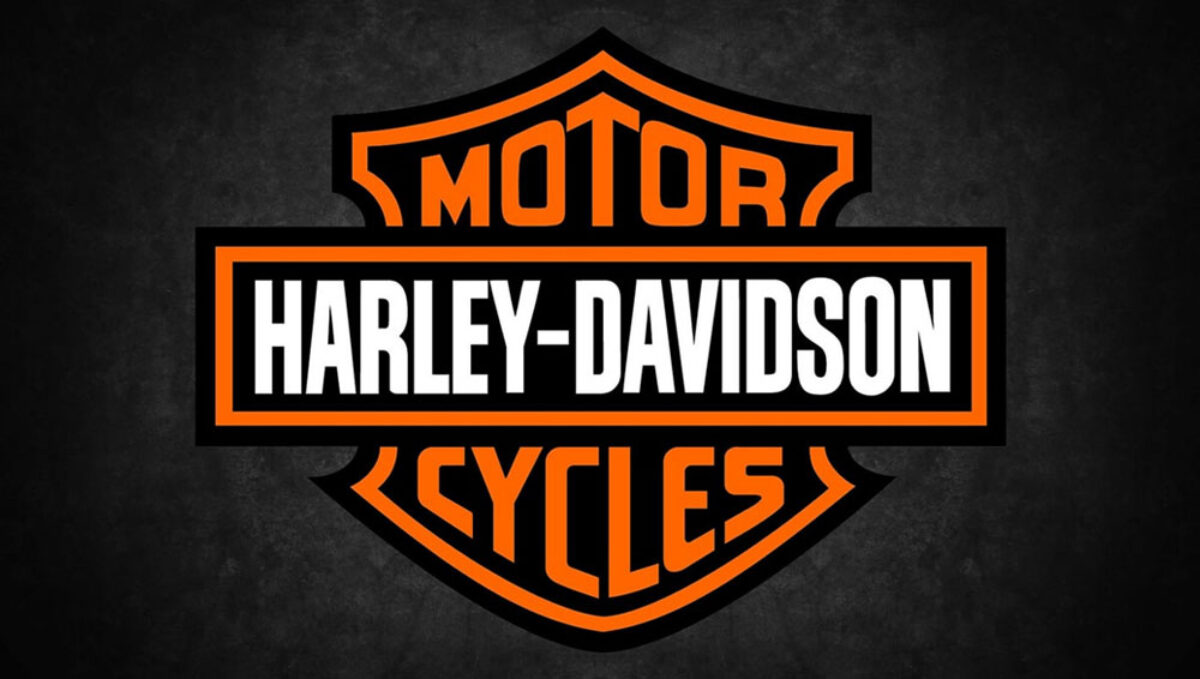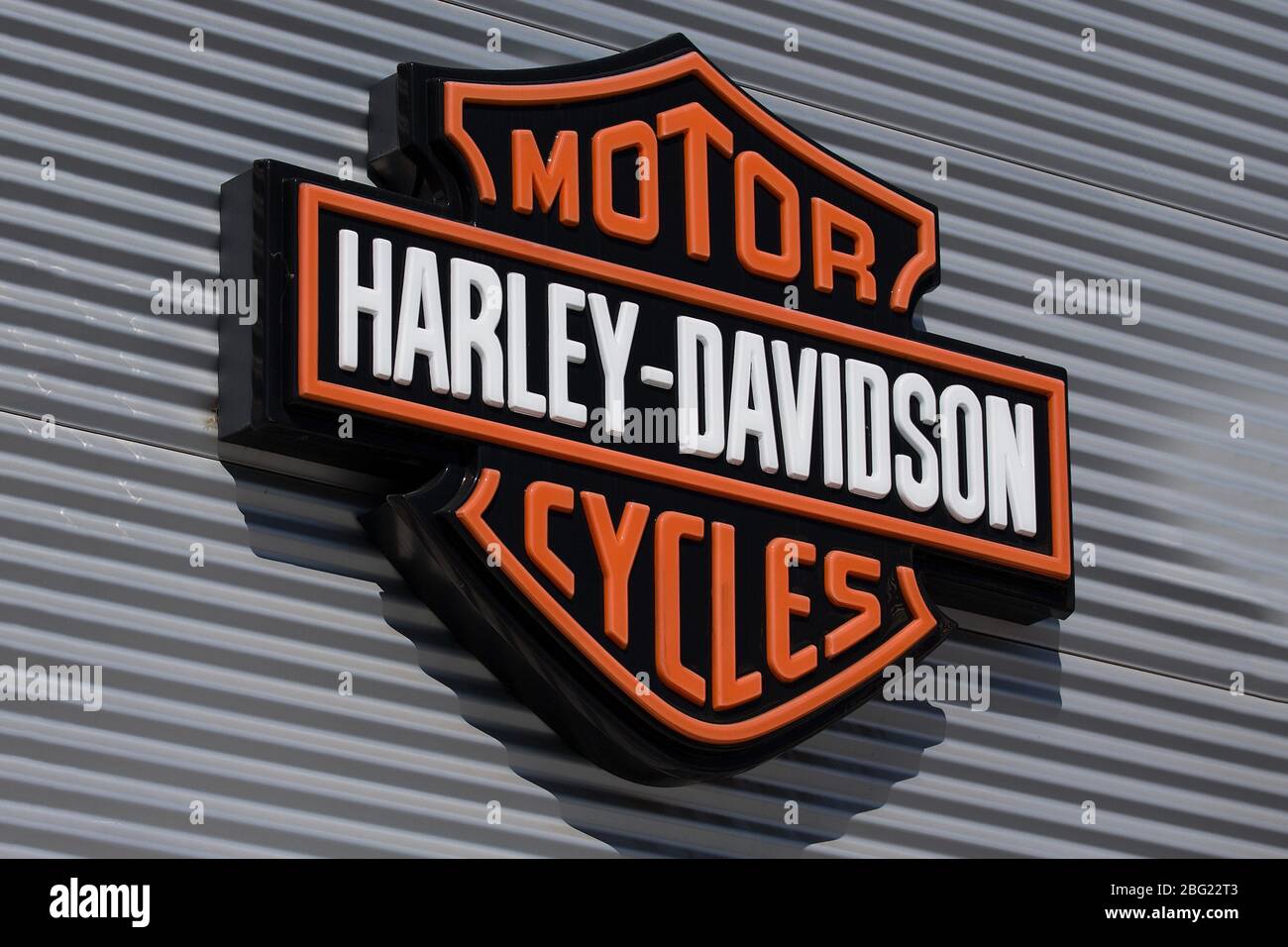
Lettering harley davidson font style. What Font Was Used in Harley-Davidson Logo. Hand lettering is an art form that takes practice and discipline and can mimic calligraphy or other styles. When you start modifying the shapes of the letters you are now illustrating hand-drawn lettering.
The Compacta font designed by Fred Lambert and the Block Gothic RR Bold ExtraCond by Steve Jackaman. Classic Harley-Davidson Font There are two premium fonts that replicate the famous logo. This sans serif font family has come with more than one hundred international language support.
Sep 30 2014 - Harley-Davidson Script Font Harley-Davidson Logo Font. The font style of Harley-Davidson is produced by Jackman and was further released in the market by Red Rooster. Harley davidson wild west font western font vintage victorian variety uppercase texture stencil slab serif sans rough rodeo font poster packaging organic old school font natural motorcycle font motorbike letterpress lettering inked.
Here at our site we wanna tell you the font family which exactly used for the logo of Harley Davidson. Click to find the best 17 free fonts in the Harley Davidson style. This font is designed by Steve Jackaman and published by Red Rooster Collection.
Fonts 1 - 1 of 1. The font Block Gothic RR Bold ExtraCond was used as the real font used in the bikes logo that further carries many similarities with the now Harley-Davidson Font. About Harley Davidson Font.
The licence mentioned above the download button is just an indication. A great legendary typeface contributes by Fred Lambert for Letraset in 1963. The logo of Harley Davidson is known as the bar and the shield which was designed in 1910.
Hand-lettered is the style where you draw each letter individually as opposed to writing them as in cursive or calligraphy. On the bar and the shield is the text HARLEY-DAVIDSON and MOTOR CYCLES respectively. Font Size 24pt 26pt 28pt 32pt 36pt 40pt 44pt 48pt 54pt 60pt 66pt 72pt 80pt 88pt 96pt 106pt 116pt 128pt 142pt 158pt 178pt 198pt 218pt 240pt.